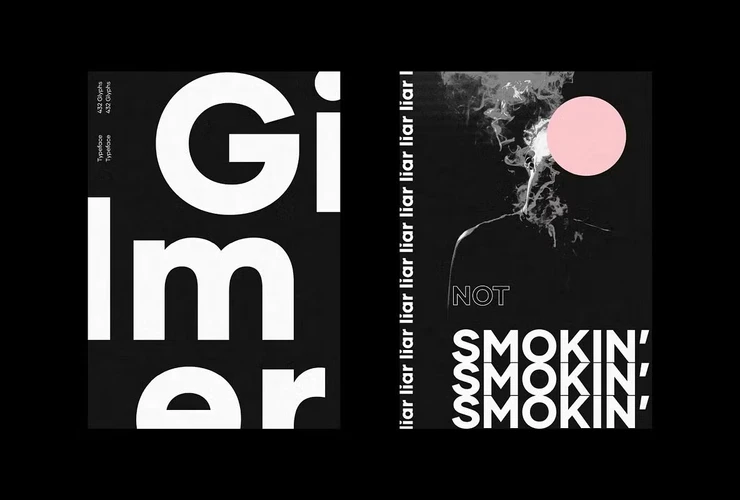
Rediscover Timeless Elegance with Gilmer – Geometric Sans Serif
Step into a world where classic design meets modern aesthetics with Gilmer – a fresh, geometric sans-serif font family. Inspired by iconic typefaces like Futura and Avant Garde, Gilmer brings a touch of the past into the present, offering versatility and style for all your design needs.
The Allure of Gilmer
Gilmer stands out with its big x-height value, geometrical letterforms, sharp edges, and minimal stroke contrast, reminiscent of the neo-grotesk fonts from the 20th century. This typeface is perfect for a wide range of applications, from magazines and posters to branding and websites. However, it’s worth noting that while Gilmer shines in many areas, it may not be the best choice for setting continuous text like books.
Features That Set Gilmer Apart
6 Styles, 6 Weights: From Thin to Heavy, Gilmer offers a range of styles to suit any design project.
Extended Latin Support: Ensuring your designs are globally accessible.
432 Glyphs Set: A comprehensive set of glyphs for diverse and creative typography.
OpenType Features: Advanced typographic features for professional design work.
Precise Kerning: Meticulously crafted for perfect letter spacing.
A Versatile Typeface for Modern Design
Gilmer’s unique blend of historical inspiration and contemporary design makes it an excellent choice for a variety of applications. Whether you’re crafting striking headlines, sophisticated branding, or engaging web content, Gilmer provides the versatility and elegance you need to make a lasting impression.
Embrace the timeless elegance of Gilmer and elevate your design projects with a touch of geometric perfection.